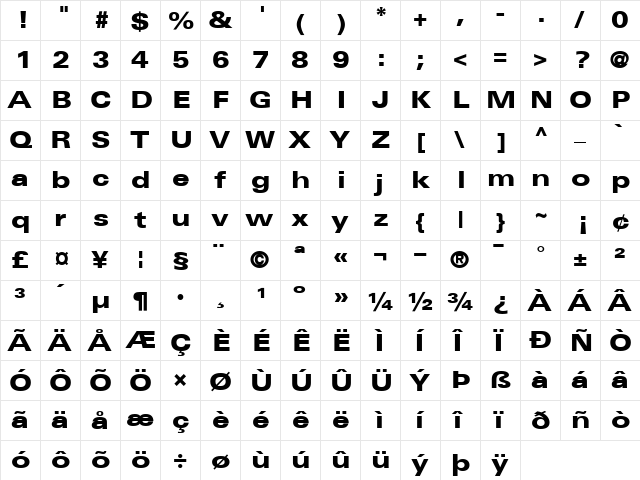
Univers73-ExtendedBlack Black Font Preview
Univers73-ExtendedBlack Black
Design Context for Univers73-ExtendedBlack Typeface
Univers73-ExtendedBlack takes a measured approach to typography — its balanced proportions and neutral character make it a reliable workhorse for both digital and print work.